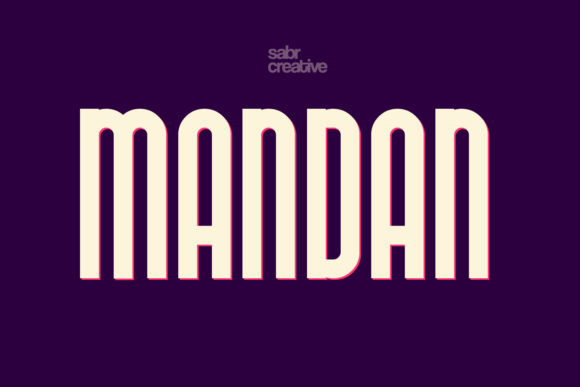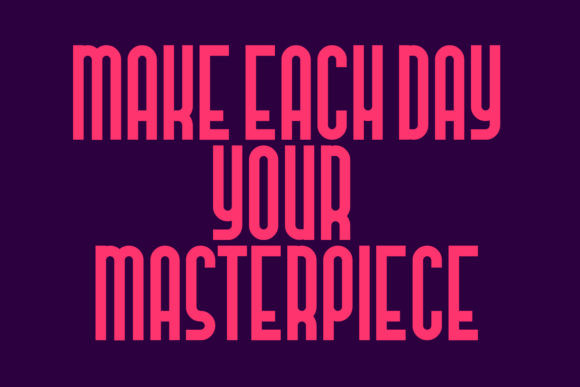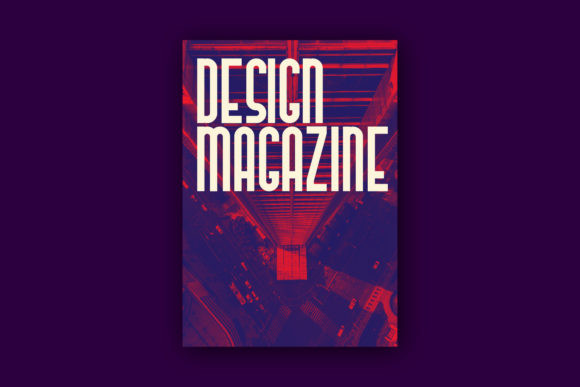
Mandan Font
Mandan is a simple and casual display font with an undeniably clean feel. This font will look particularly adept when used in logos, branding, packaging design, and much more.